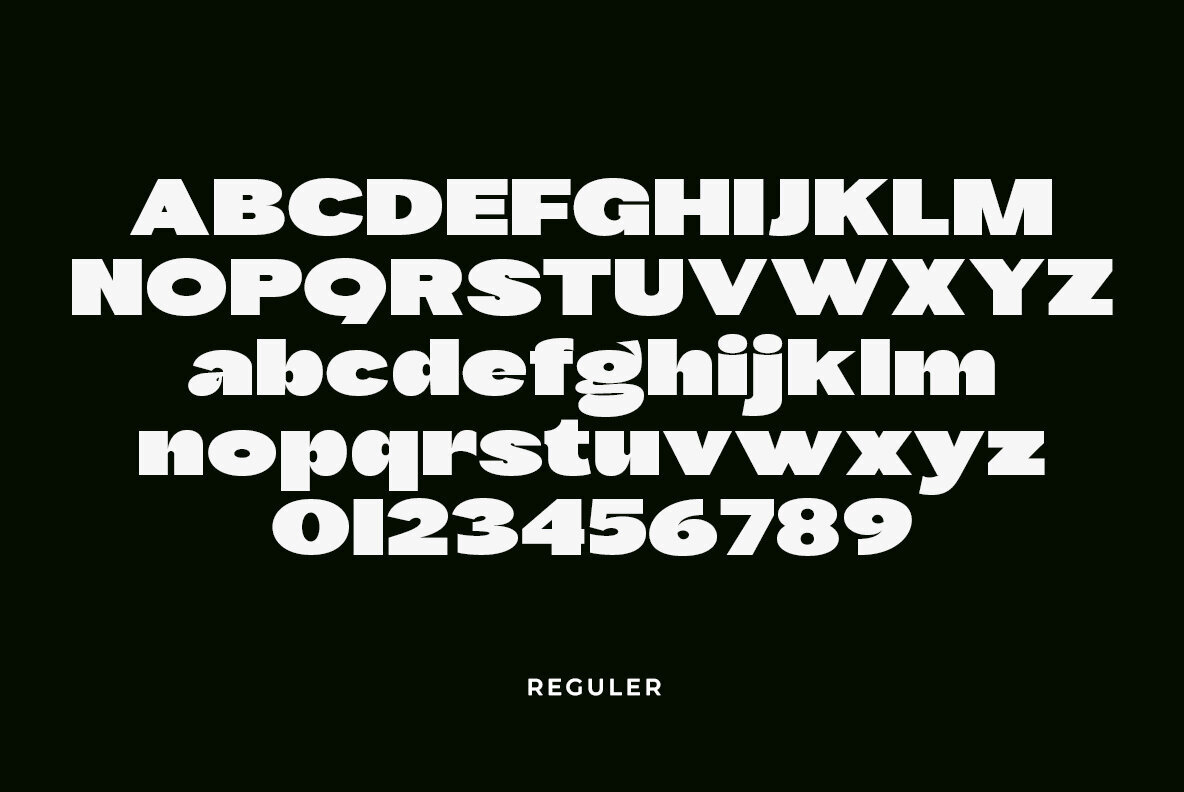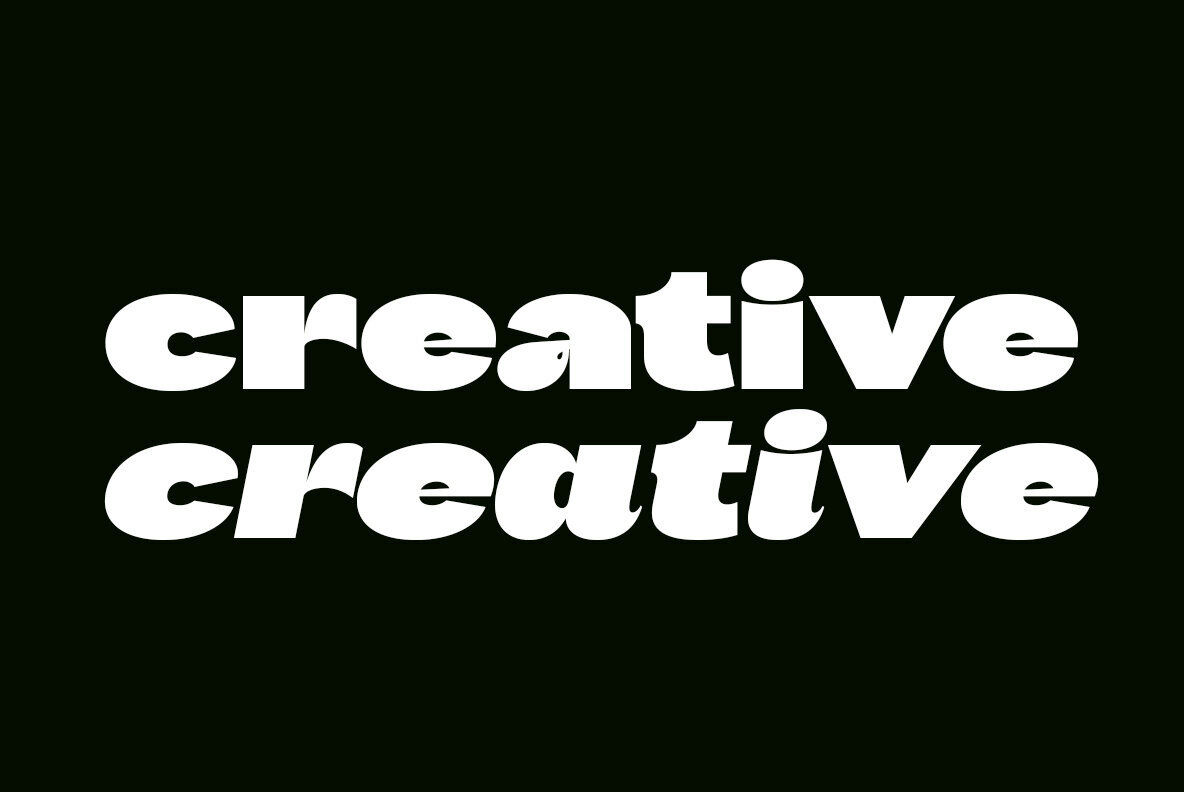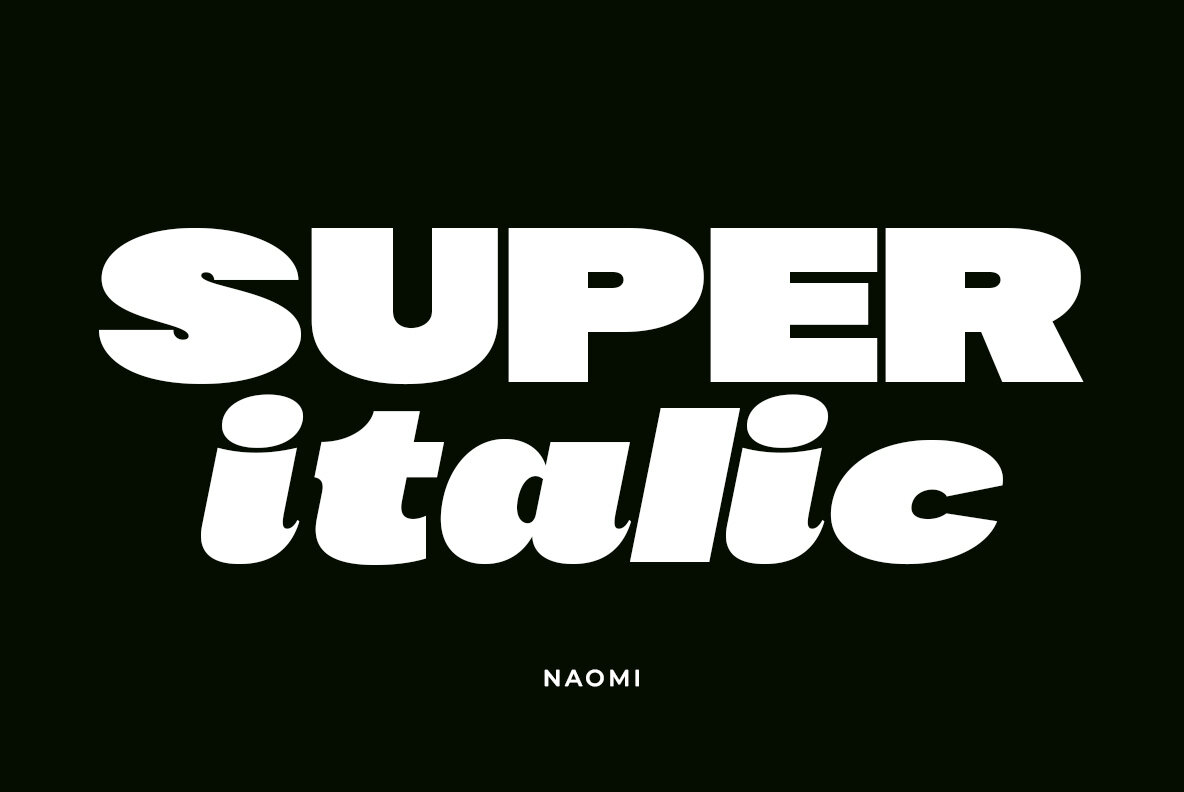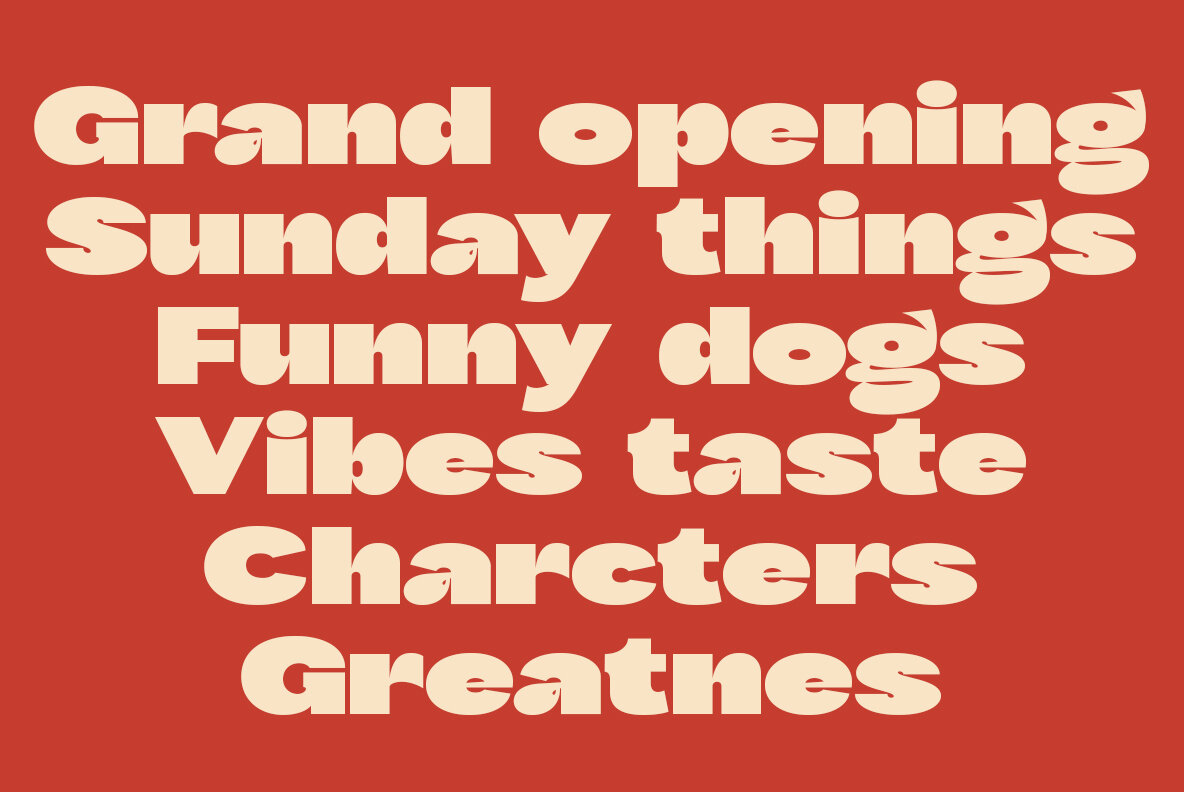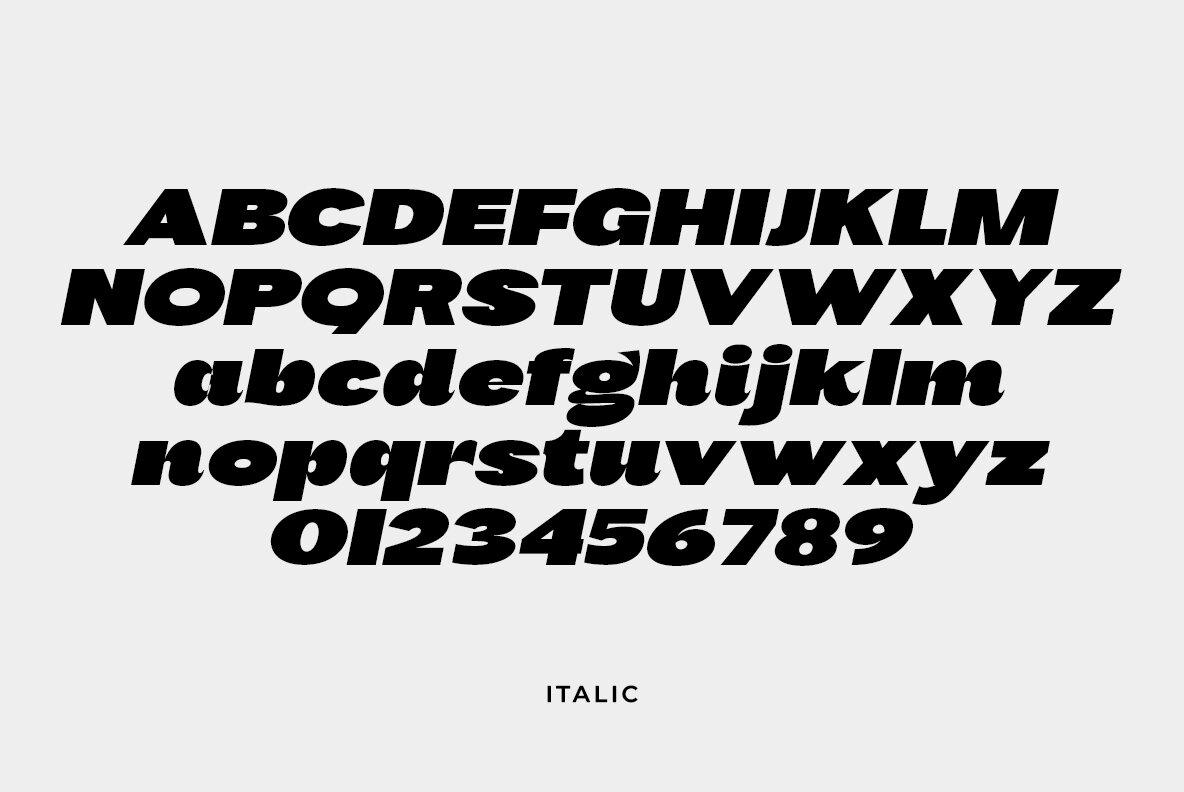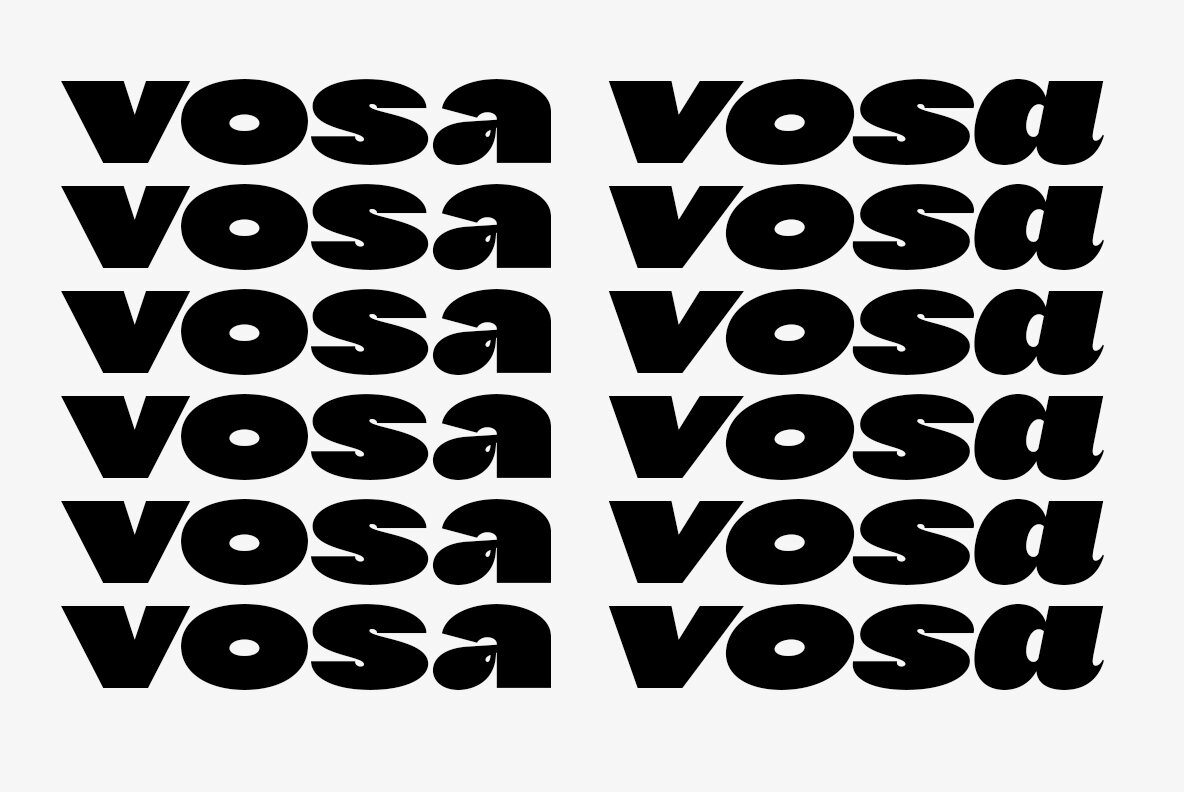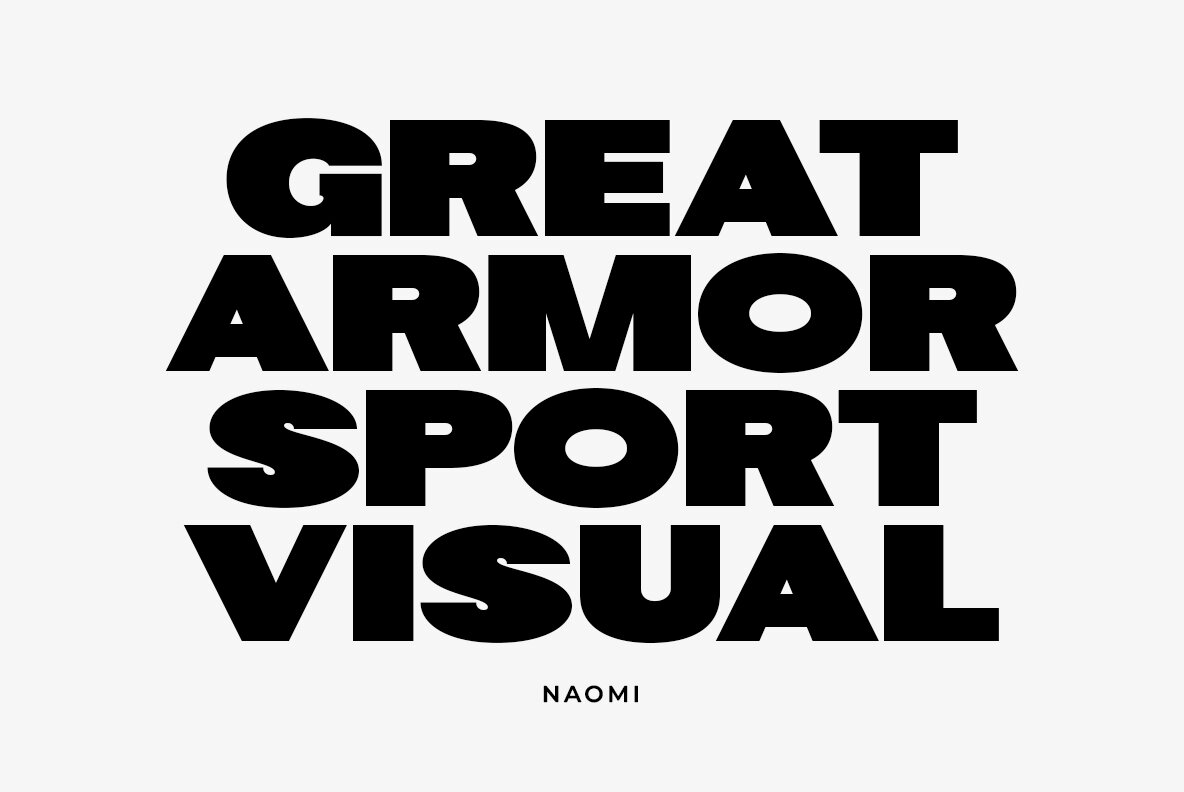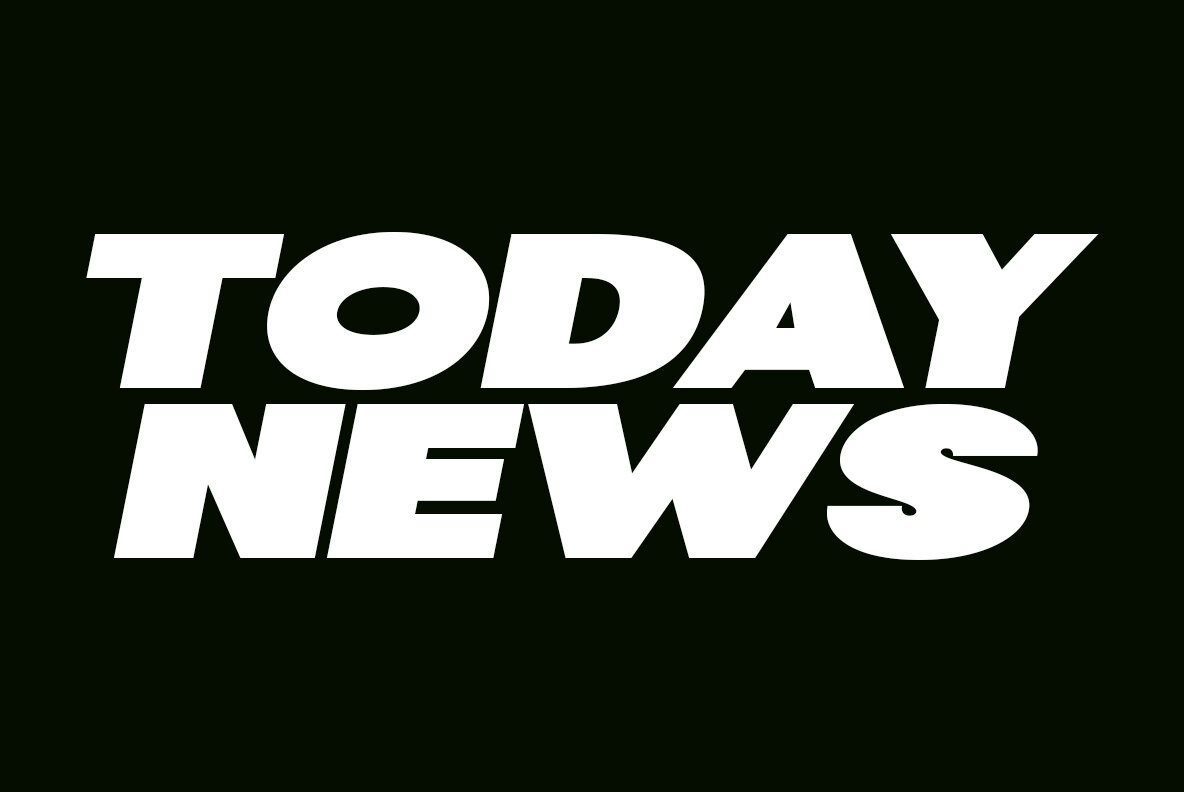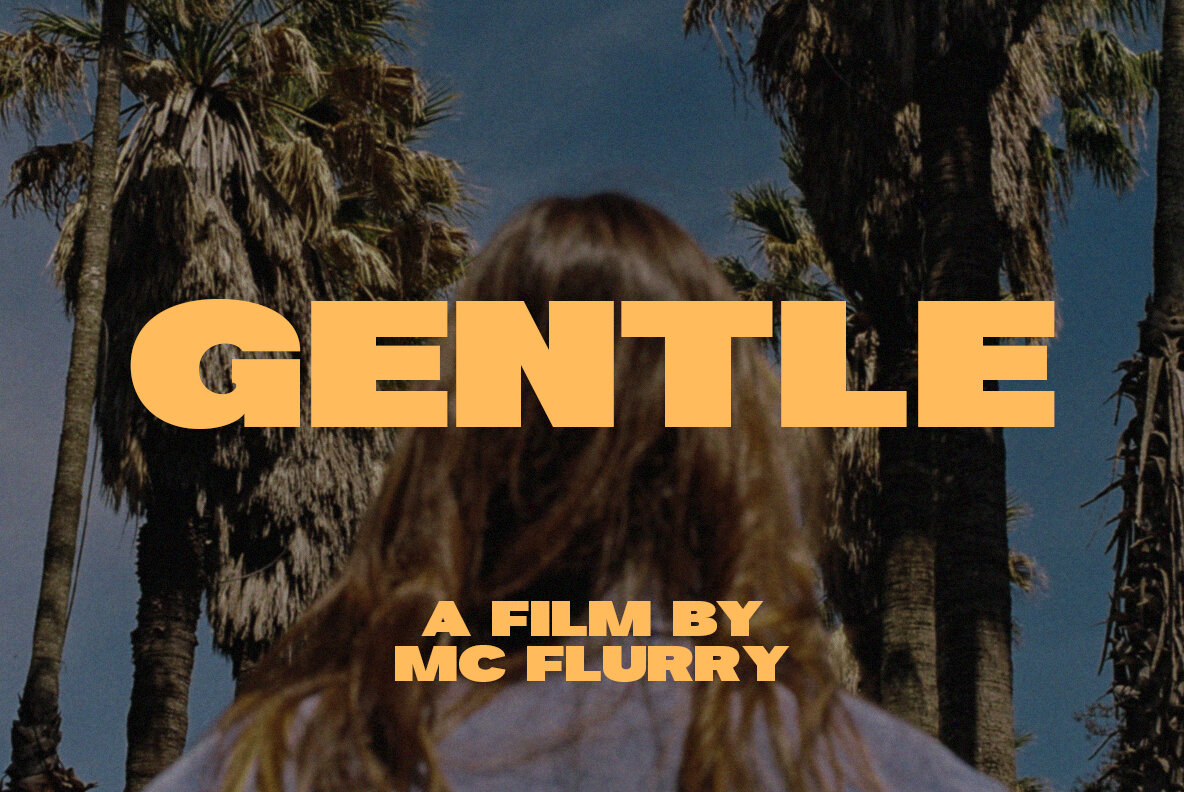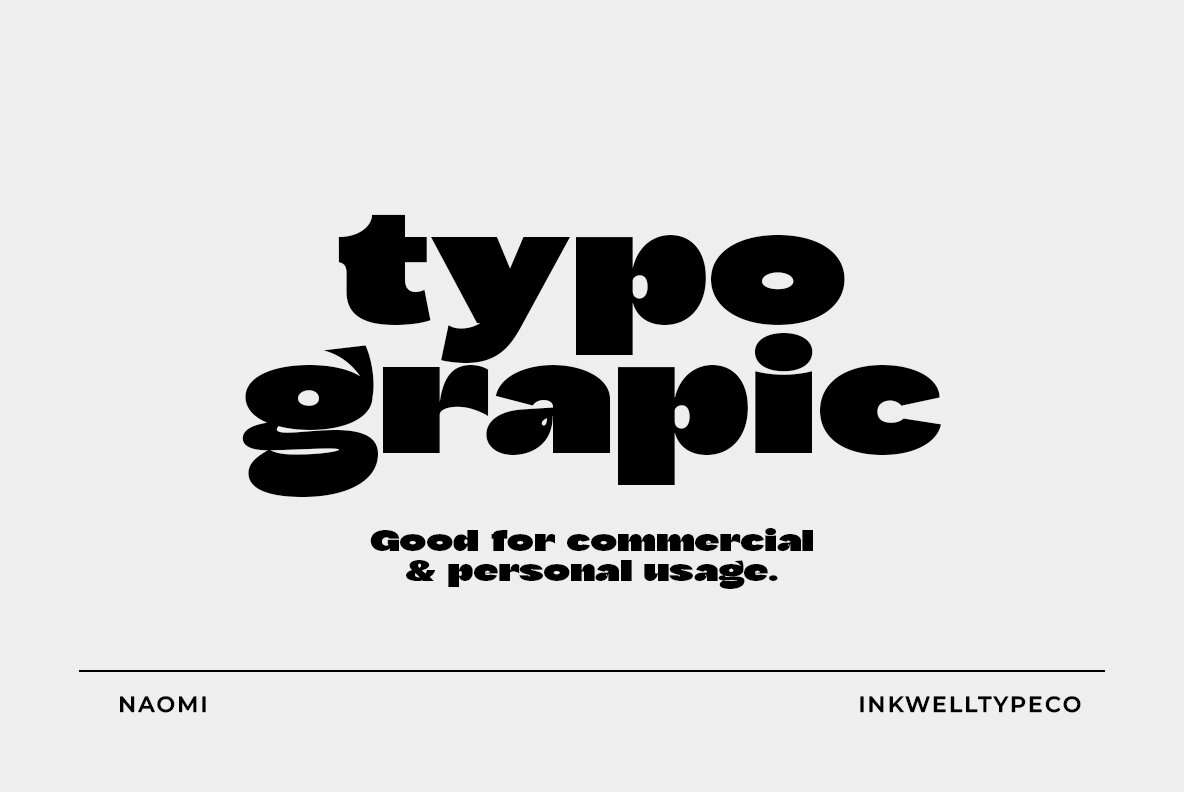
Naomi Font
Naomi is a classic display sans with fat of style. It uses minimal ornate flourishes and unique letters to show its class. Hello Signove comes with an ornate italic to match. Perfect for your work, magazines or just a classy logo design.